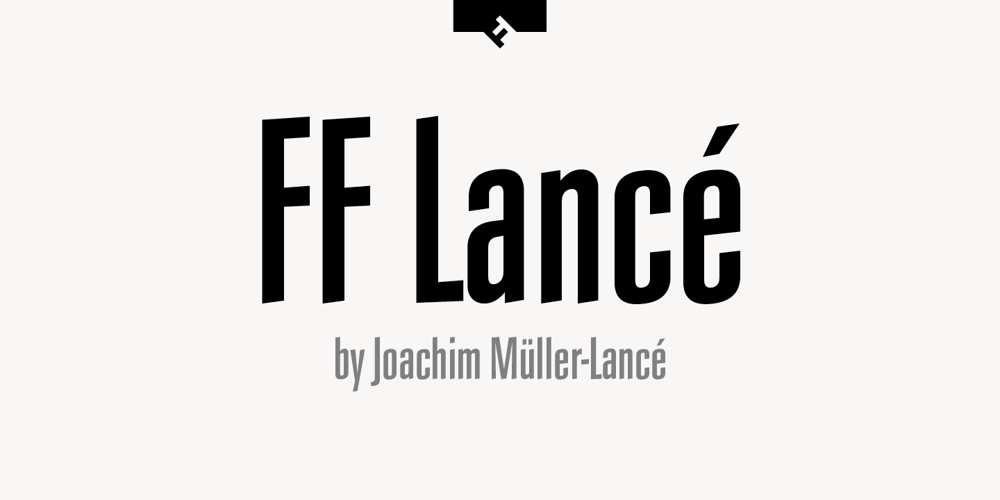
FF Lancé
FF Lancé font
FF Lancé Font Family was designed by Joachim Müller-Lancé and published by FontFont. FF Lancé contains 3 styles and family package options. German type designer Joachim Müller-Lancé created this sans FontFont in 1997. The family contains 3 weights and is ideally suited for advertising and packaging and sports. FF Lancé provides advanced typographical support with features such as ligatures and case-sensitive forms. It comes with proportional lining figures. In 1993, FF Lancé received the Morisawa award.